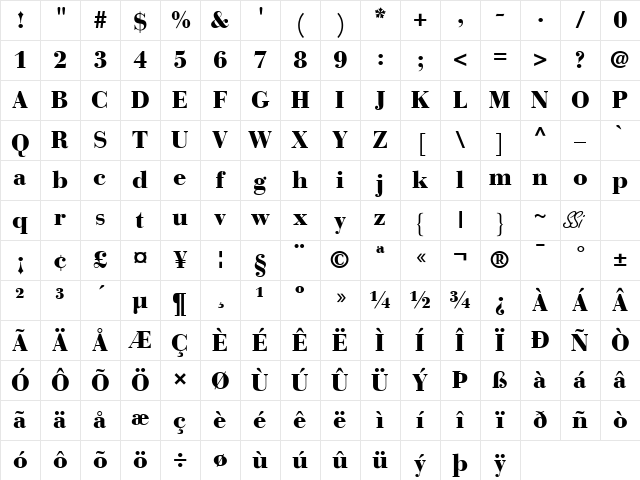
Bodoni Recut Black SSi Black
Design Context for Bodoni Recut Black SSi
Bodoni Recut Black SSi is a composed and adaptable typeface that performs quietly and consistently across a wide range of design contexts.
Pro Tip: Use Bodoni Recut Black SSi in both headline and body roles to test its range before committing to a single application.